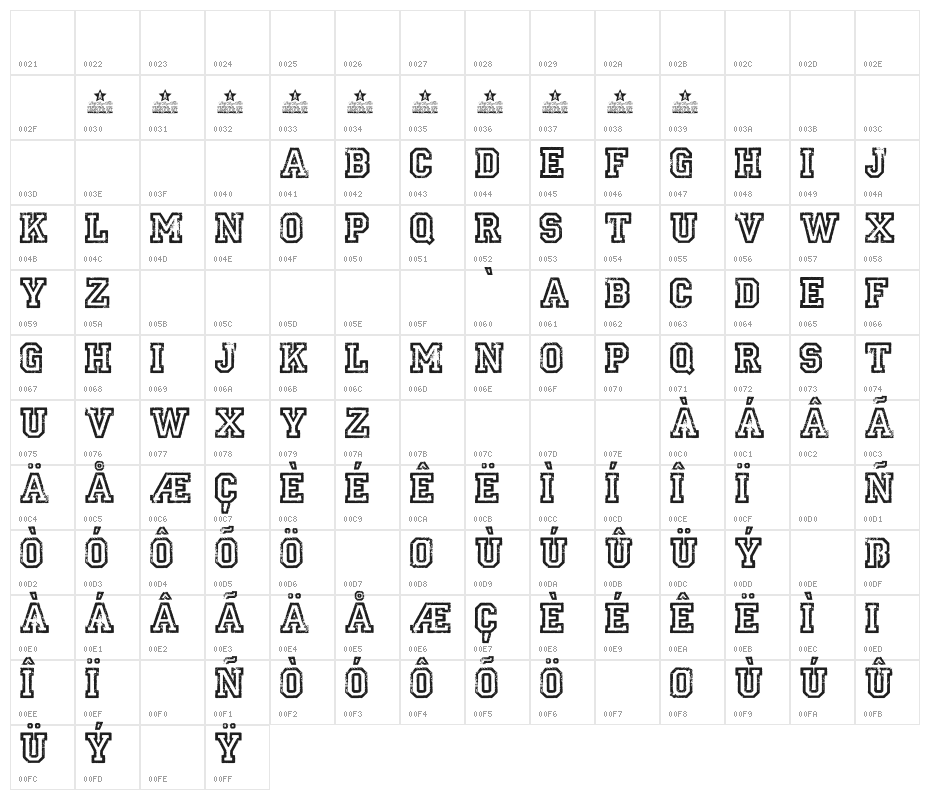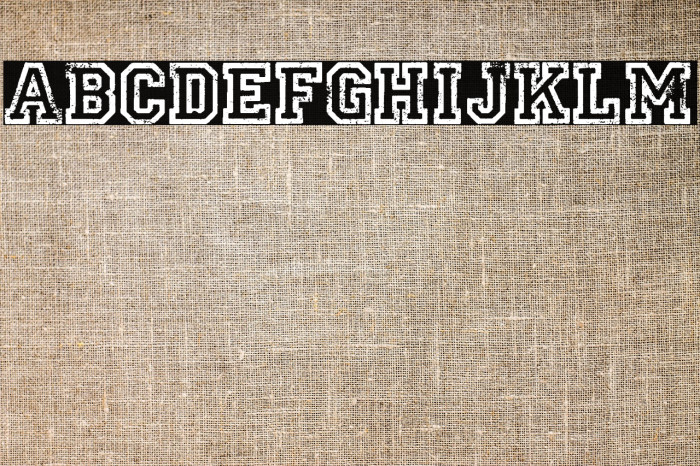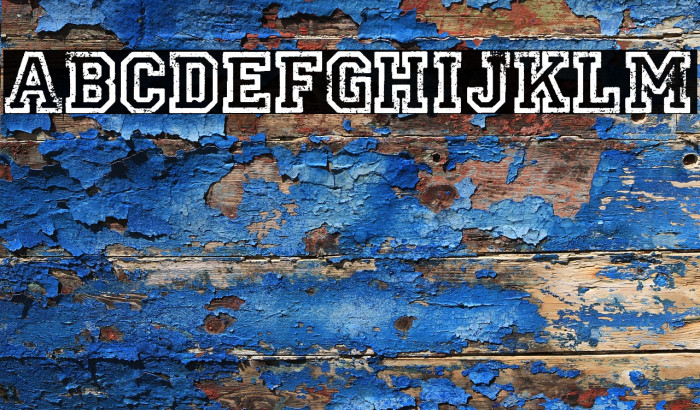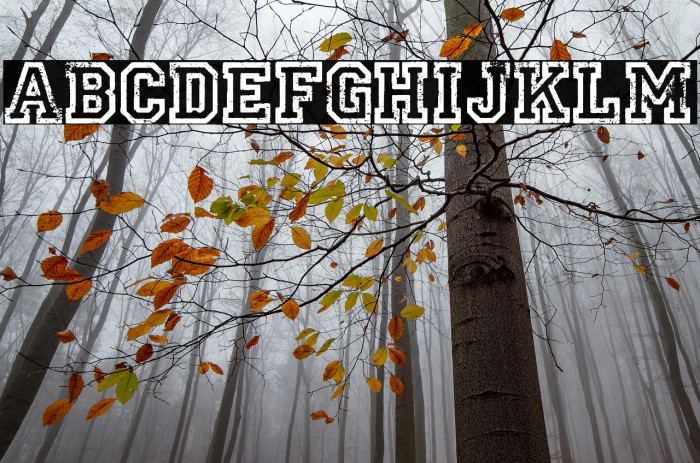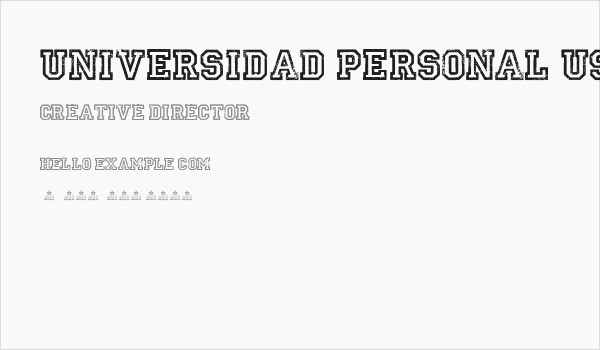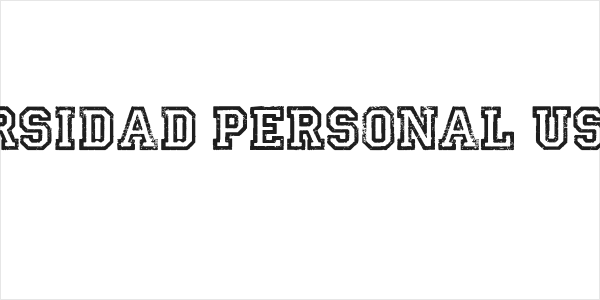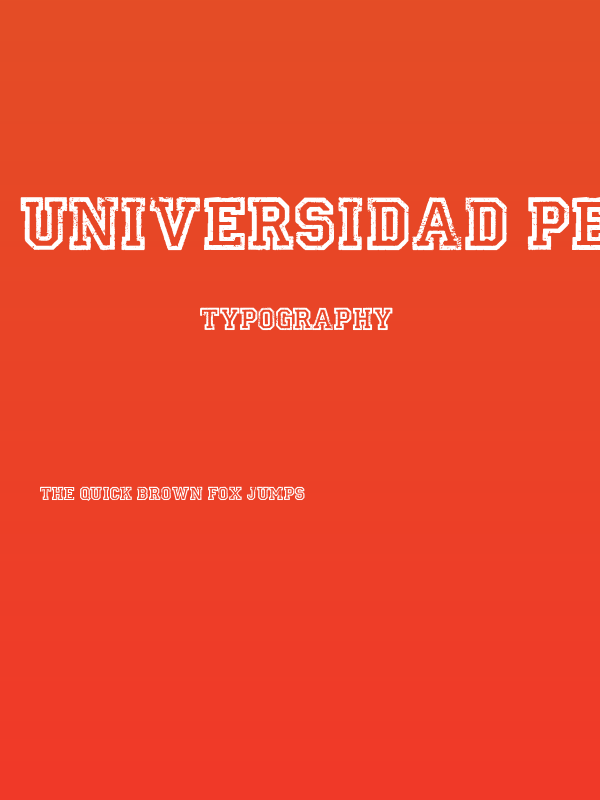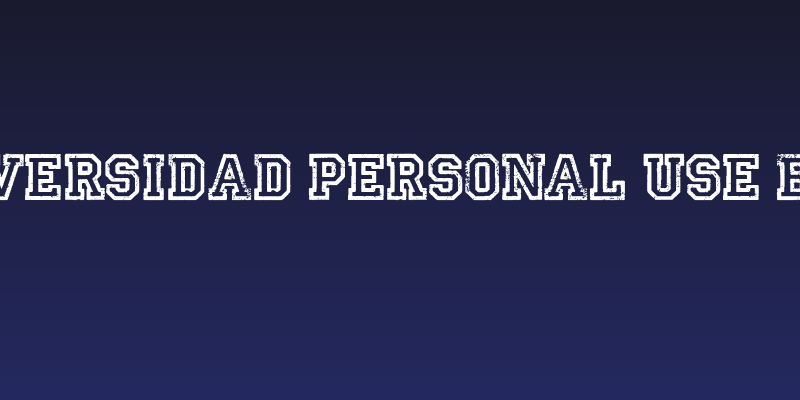
UNIVERSIDAD PERSONAL USE Bold Font
UNIVERSIDAD PERSONAL USE Bold Description
This font features a bold, distressed style with a vintage, collegiate feel. The uppercase letters are designed with a strong, blocky appearance, reminiscent of traditional varsity or university lettering. Each character has a textured, worn effect that adds a sense of history and ruggedness, making it ideal for designs that require a retro or nostalgic touch. The font's boldness and distinct outlines ensure high visibility and impact, suitable for attention-grabbing headlines or logos. Its unique style can evoke a sense of tradition and strength, perfect for projects that aim to convey reliability and heritage.